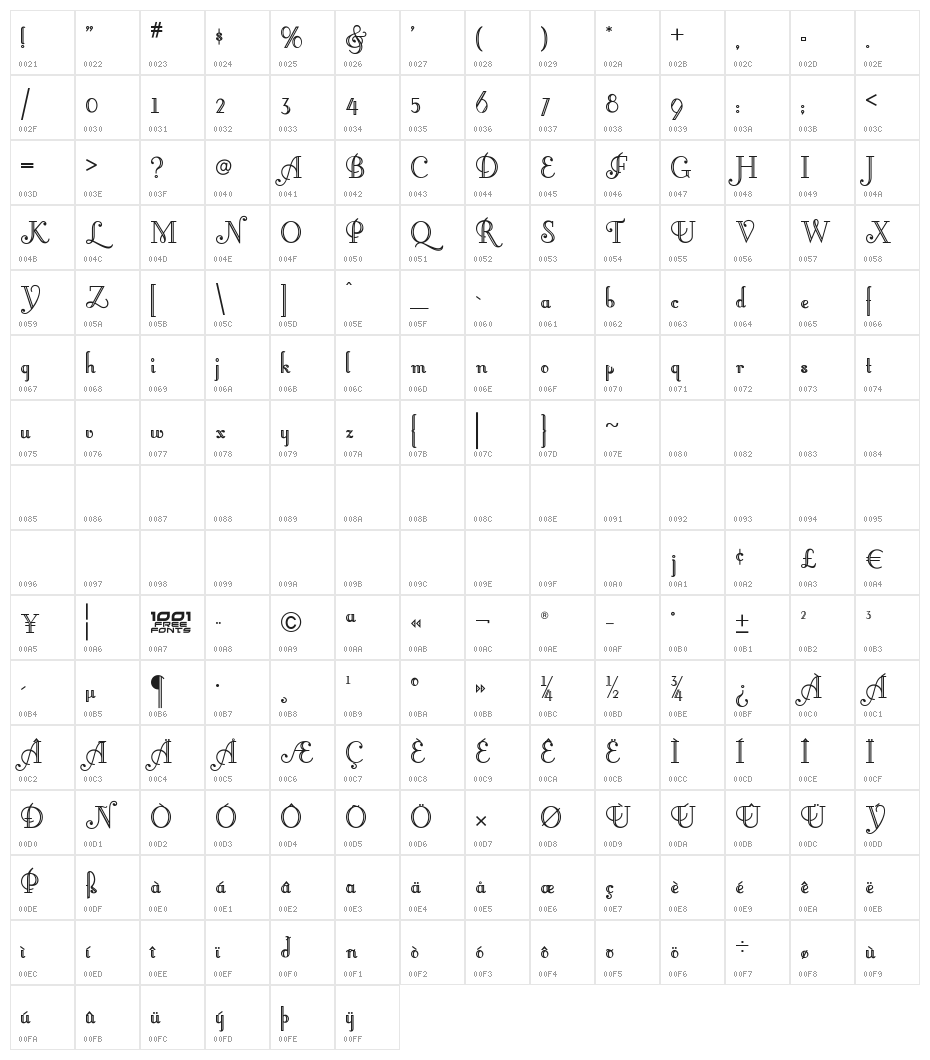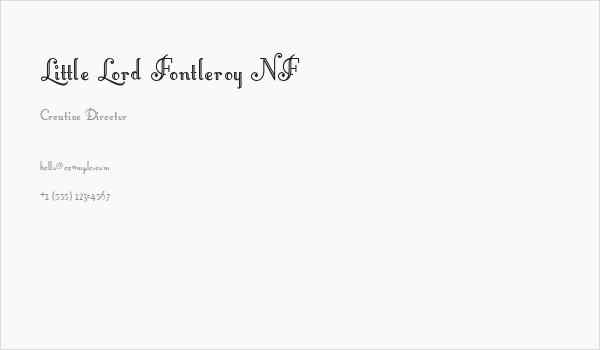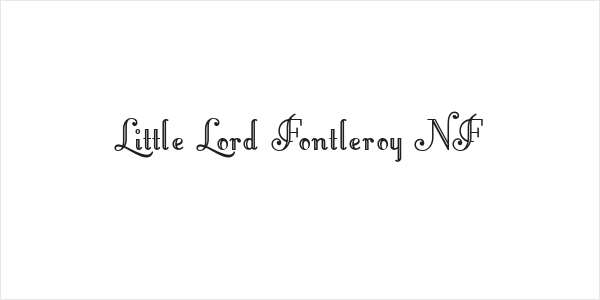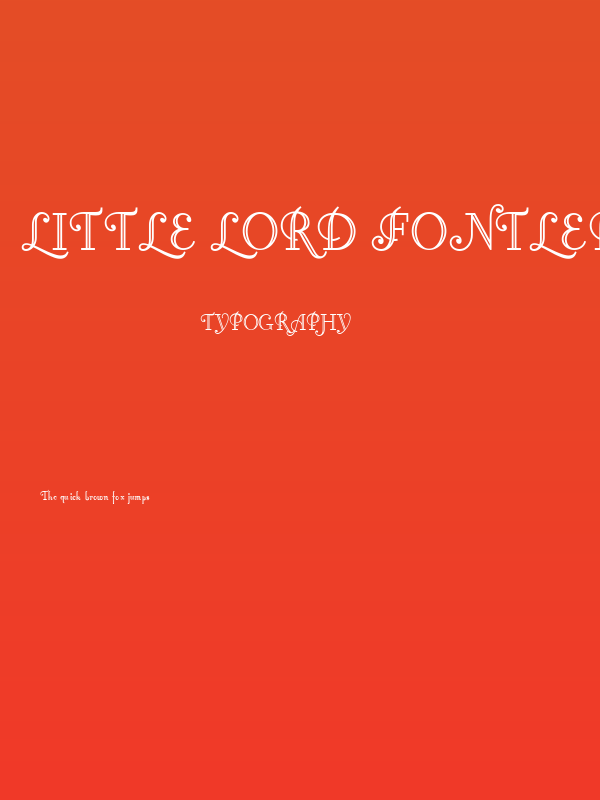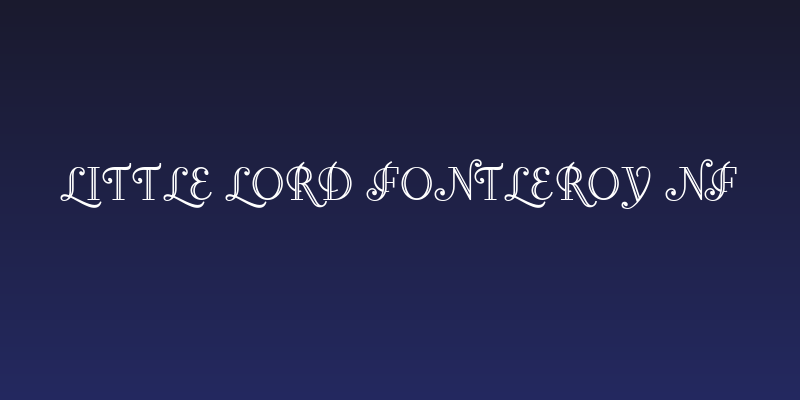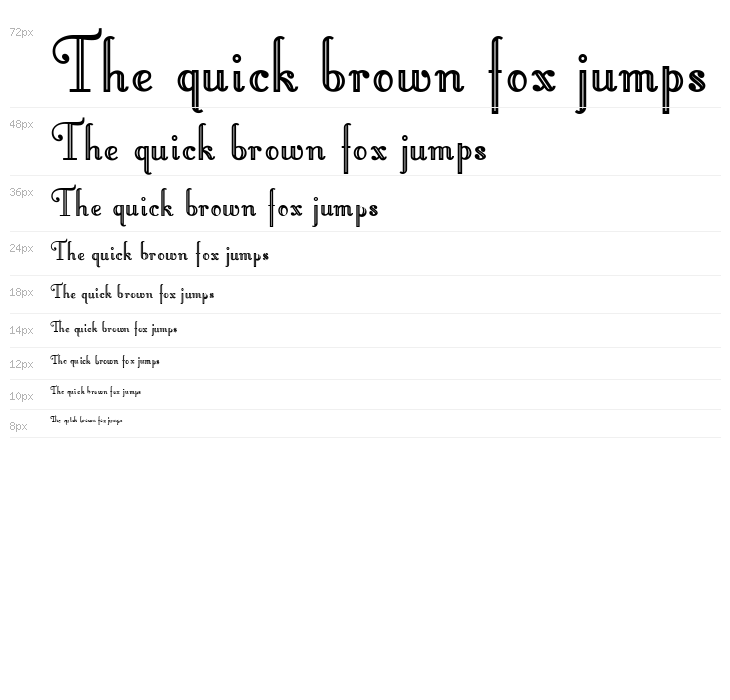
Little Lord Fontleroy NF Font
Little Lord Fontleroy NF Description
This font features a decorative and elegant style with intricate curls and flourishes on the capital letters, giving it a sophisticated and ornate appearance. The lowercase letters maintain a more straightforward design, providing a nice contrast to the elaborate uppercase. The numerals are consistent with the overall style, featuring subtle embellishments that enhance their visual appeal. The special characters are well-integrated, maintaining the decorative theme. This font is ideal for projects that require a touch of elegance and sophistication, such as invitations, branding, and decorative headings.
| Proposed Projects | Ideal for wedding invitations, luxury branding, decorative headings, and artistic projects. |